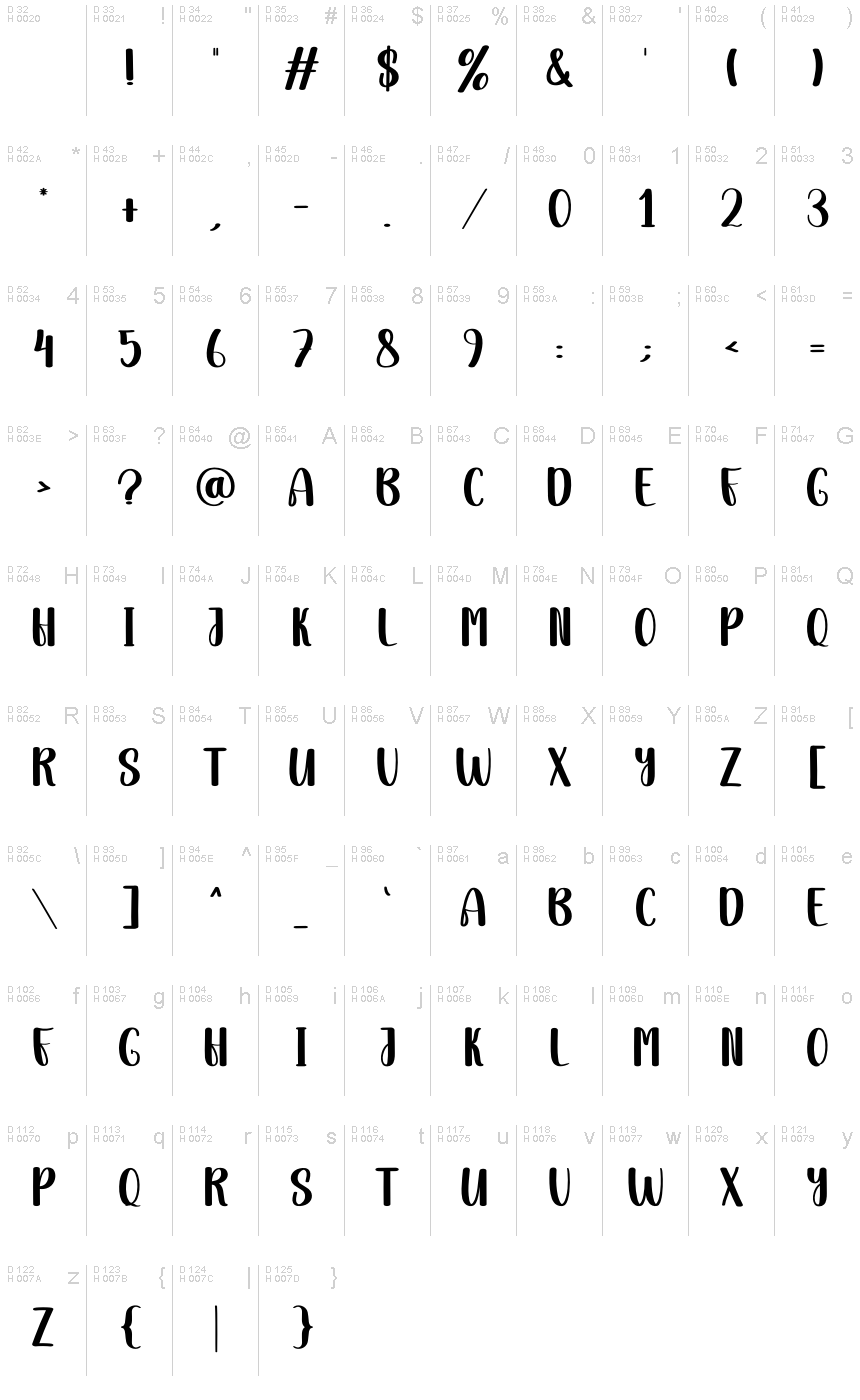
Quiet Night
Quiet Night, designed by Scratchones, exudes a casual elegance with its handwritten style that seems to capture the essence of intimate journal entries or personal letters. The font's slender form gives it a delicate and efficient use of space, making it perfect for designs where a touch of warmth and personality is desired without overwhelming the composition.
This font lends itself beautifully to creative projects such as greeting cards, book covers, and invitations. Its personable touch enhances marketing materials for boutique businesses or adds an air of sophistication to branding that aims for an approachable yet refined aesthetic. Quiet Night is also well-suited for editorial work where its unassuming charm can create a subliminal connection with the reader.